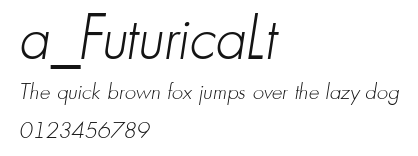
a_FuturicaLt Preview
• Font Name: a_FuturicaLt
• Font Style: ThinItalic
• Font ID: Macromedia Fontographer 4.1 a_FuturicaLt ThinItalic
• Full Font Name: a_FuturicaLt ThinItalic
• Version: Ver.001.002 ( 19.06.97)
• PostScript Name: AFuturicaLtThinItalic
• Character Count: 197
About a_FuturicaLt.ttf
a_FuturicaLt.ttf is a modern, elegant sans-serif font designed for ultimate readability and visual harmony. Perfect for branding, headlines, web design, and print materials.